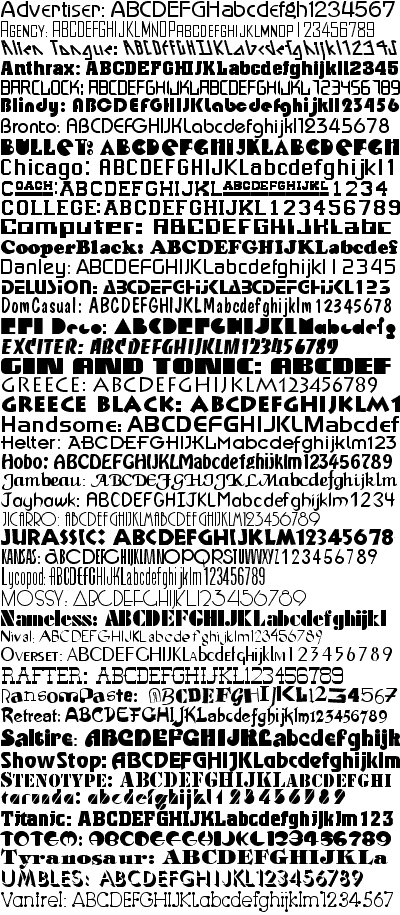
10 hand kerned OpenType Headline style scalable fonts for Windows. Run HEADLNS.EXE to preview and selectively install. Includes:Advertiser, Agency, Danley, Dom Casual, Greece Black, Handsome, Hobo, Mossy, Umbles, Vantrel.This collection of Display or Headline fonts is perfect for attracting attention to your work. These fonts are perfect for documents, posters, greeting cards, signs, advertising, logos, or anything that needs to attract the attention of your reader. You get all the classic fonts used in modern advertising. The collection includes 48 hand crafted faces. Each font contains the full ANSI character set, which covers most Western European languages.